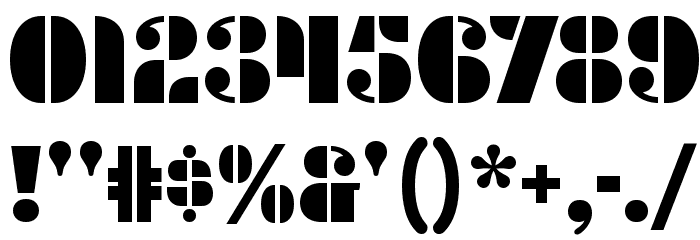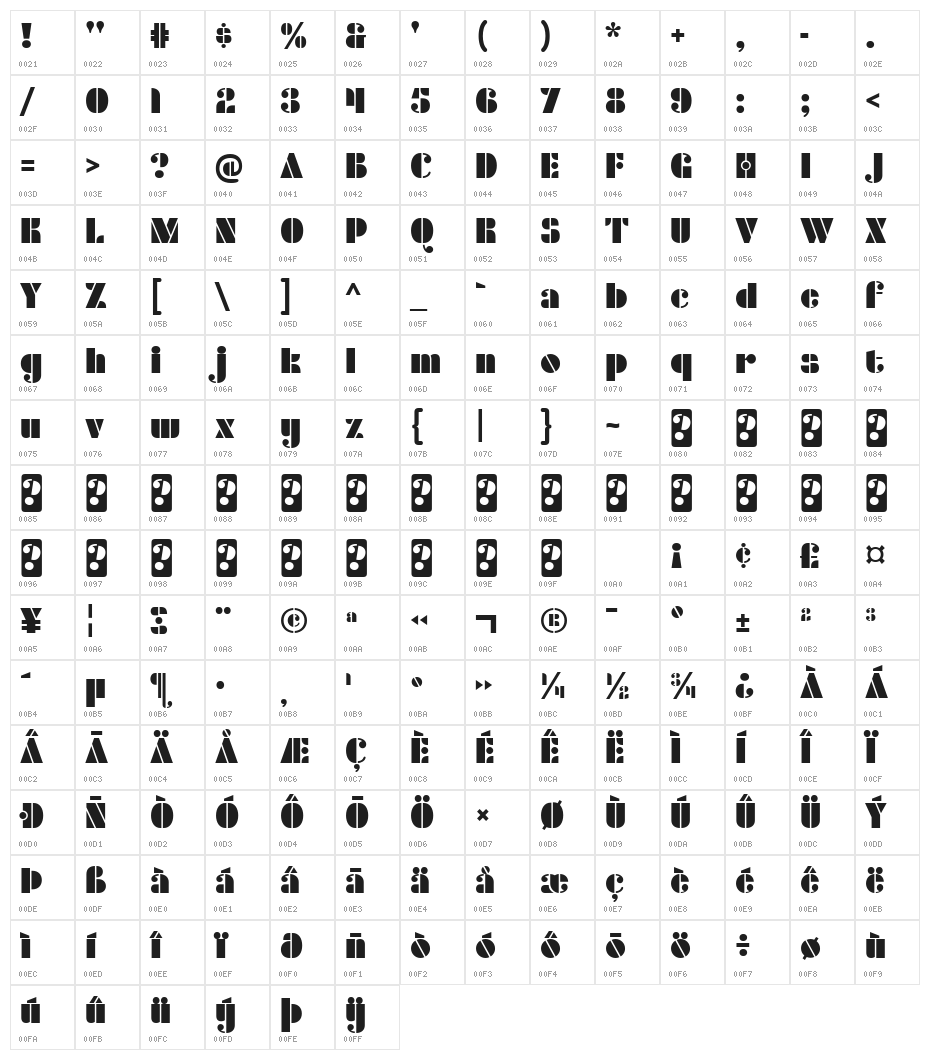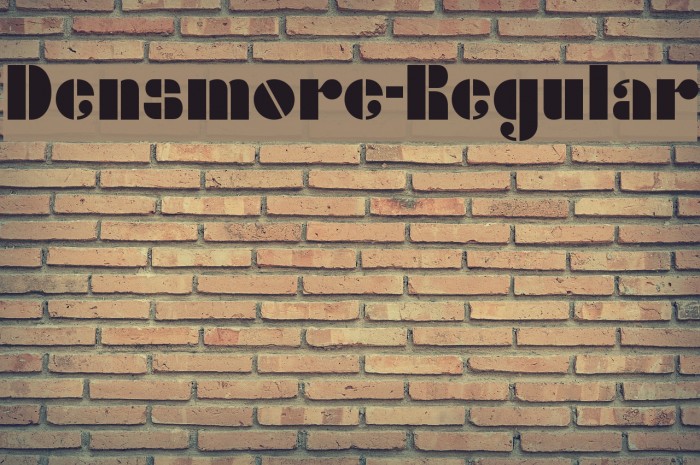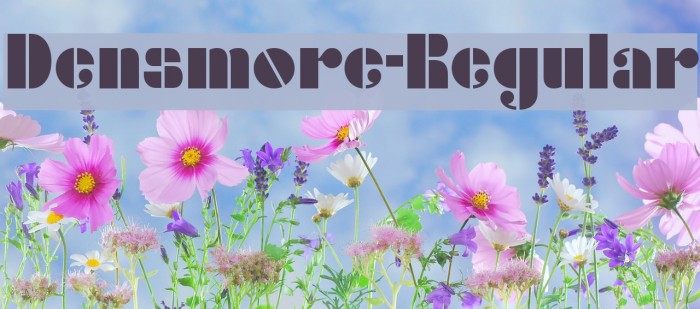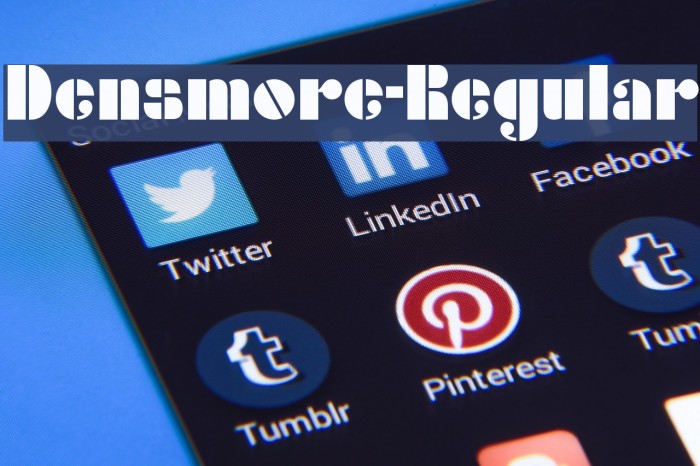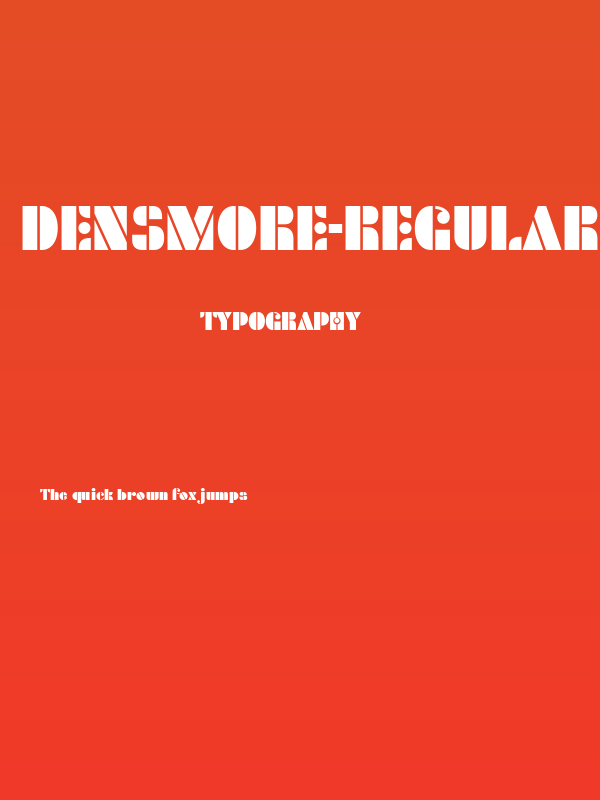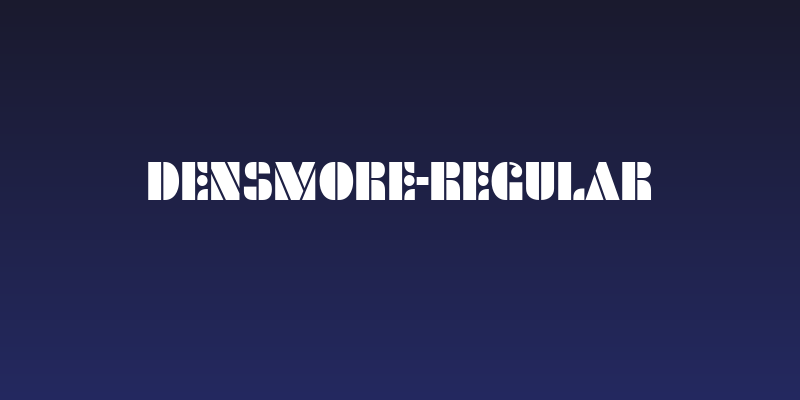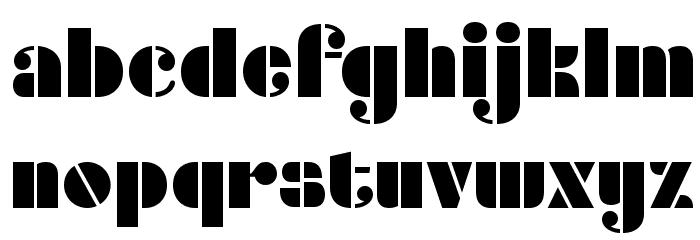
Densmore-Regular Font
Densmore-Regular Description
This font features a bold and striking design with a high level of contrast between thick and thin strokes. The characters are crafted with a decorative flair, incorporating unique cutouts and geometric shapes that add a modern and artistic touch. The uppercase letters are particularly bold, with a strong presence that makes them ideal for attention-grabbing headlines. The lowercase letters maintain the same stylistic elements, ensuring consistency throughout the typeface. Numbers and special characters are designed with the same boldness and decorative style, making them suitable for creative and dynamic projects.
| Proposed Projects | Ideal for branding, poster design, album covers, and any project requiring a modern, artistic flair. |